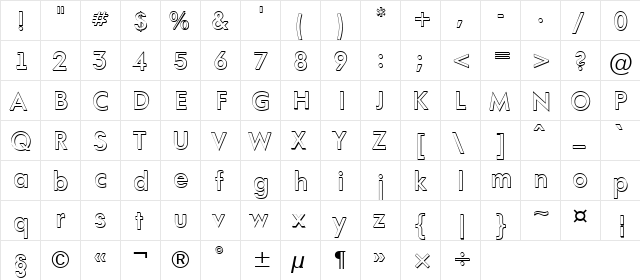
a_FuturaOrtoSh Bold
Design Context for a_FuturaOrtoSh Typeface
a_FuturaOrtoSh has a distinctly futuristic character, with geometric precision and clean angles that feel at home in technology, gaming, and sci-fi contexts. The heavy weight commands attention and anchors typographic hierarchies.